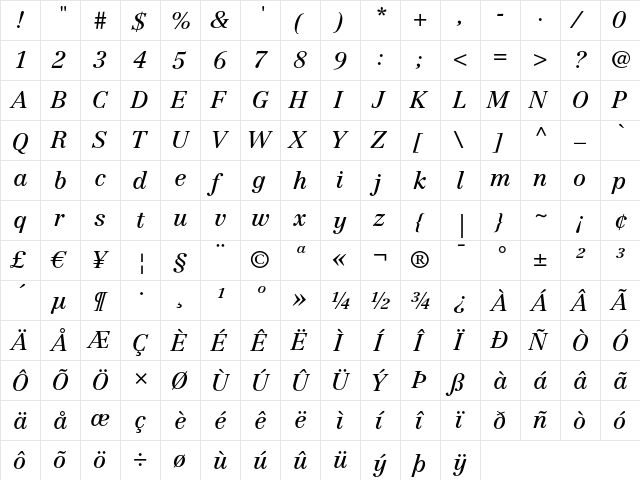
Linotype Centennial LT 56 Italic
Design Context for Linotype Centennial LT Typeface
Linotype Centennial LT offers clean, dependable letterforms without strong stylistic allegiance, making it a practical choice for designers who need flexibility. The slanted form adds forward momentum and visual energy. Its slender proportions lend an understated elegance to any composition.
Pro Tip: Try Linotype Centennial LT for annotation and caption copy alongside an upright companion — the contrast in angle creates a dynamic but ordered typographic system.